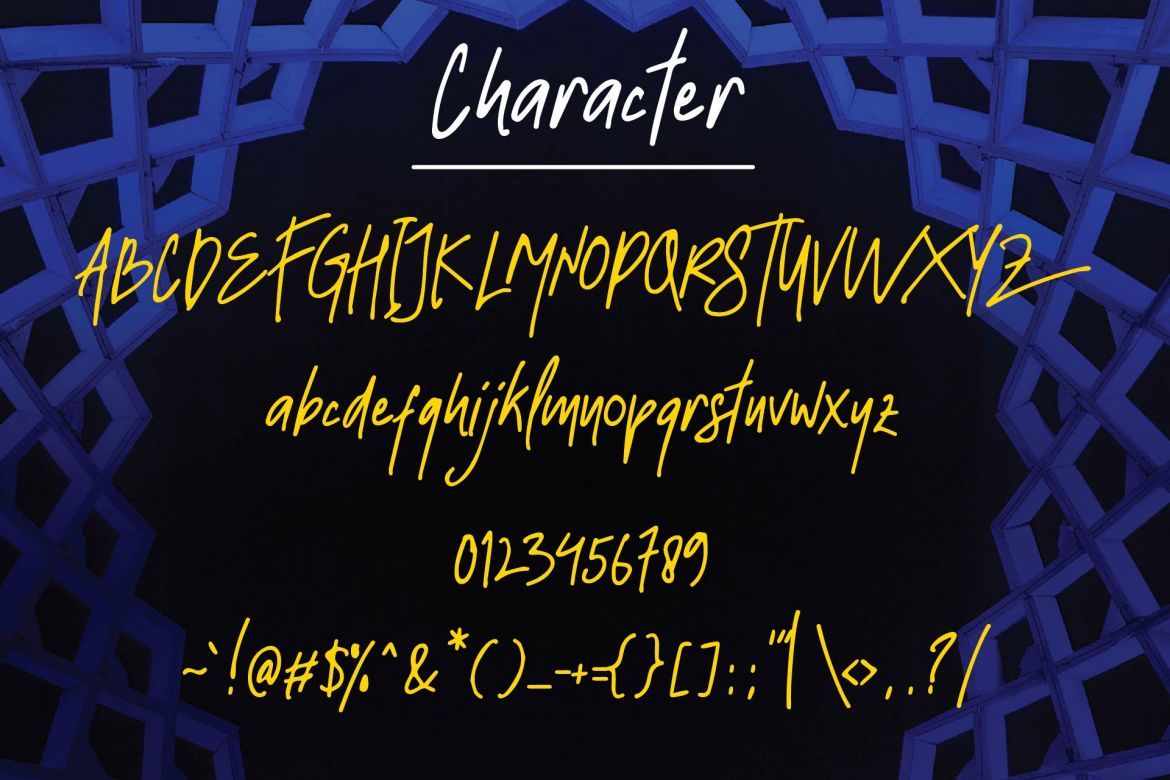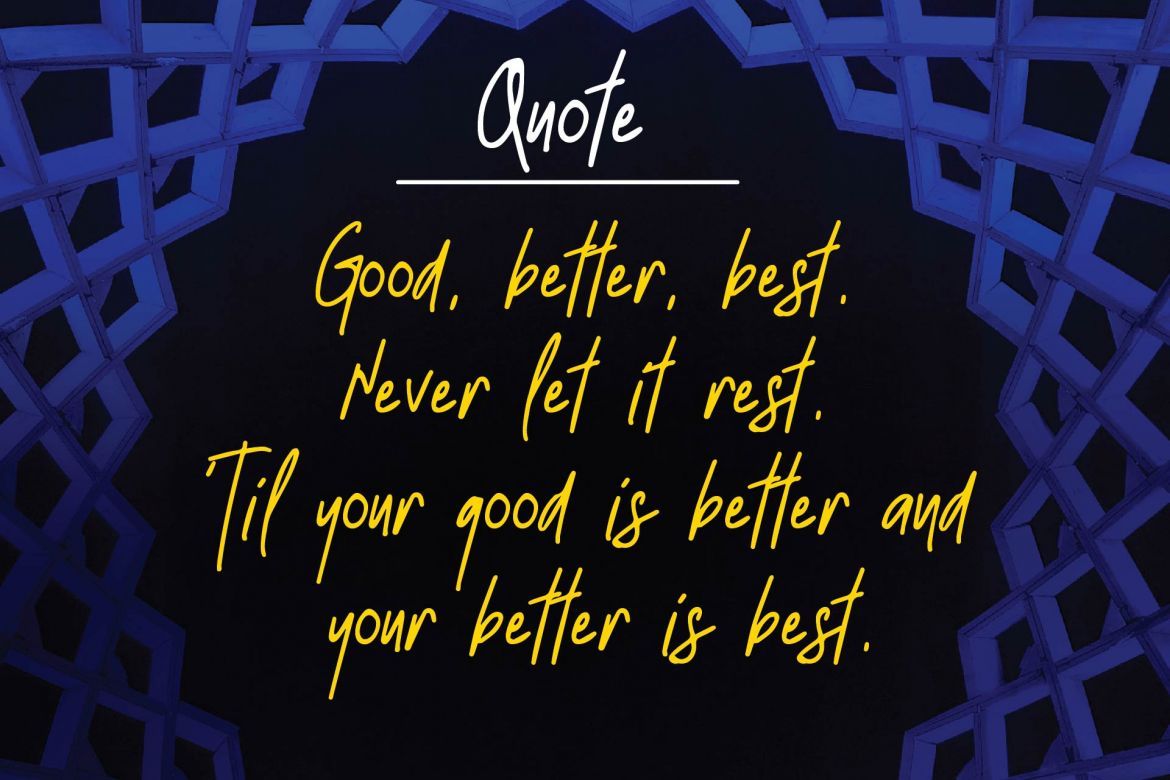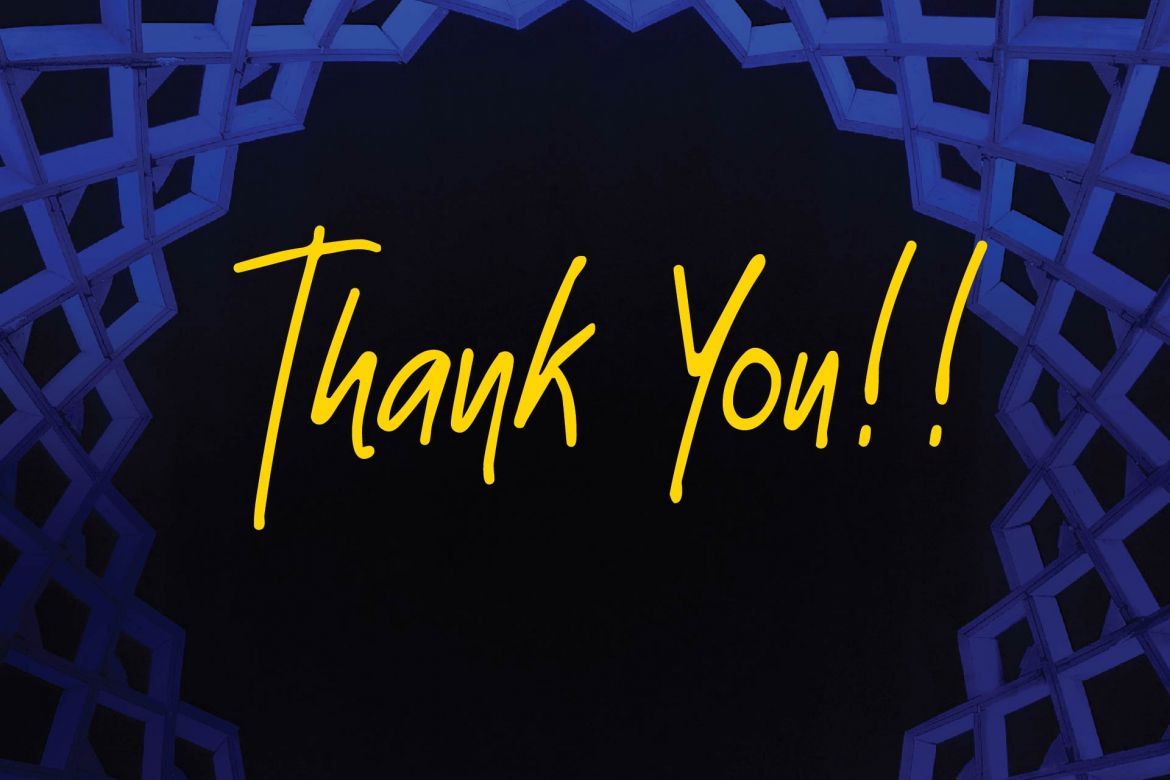
Strawline Typeface
Strawline Typeface is a A New Handwritten Script Lettering Typeface with Unique looks.
Great for Apparel Brand, Logos, printed quotes, invitations, image overlays, greeting cards, product packaging, text headers, any greeting cards, book cover, Painting design style, or any design that needs natural and personal touch & whatever else your imagination holds! Mix and match the alternate characters to add an attractive message to your design.